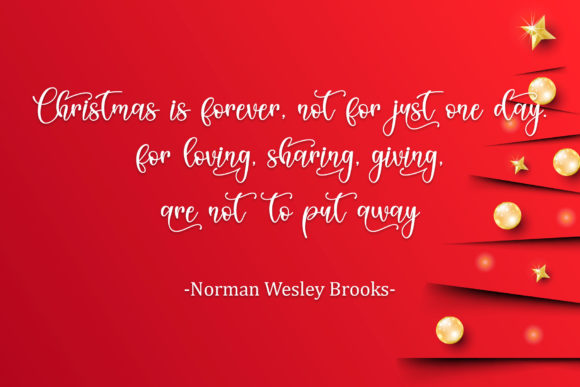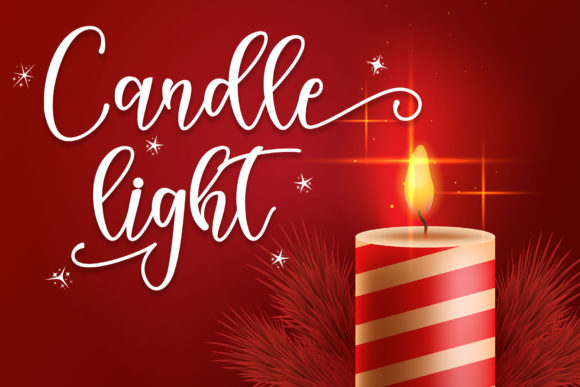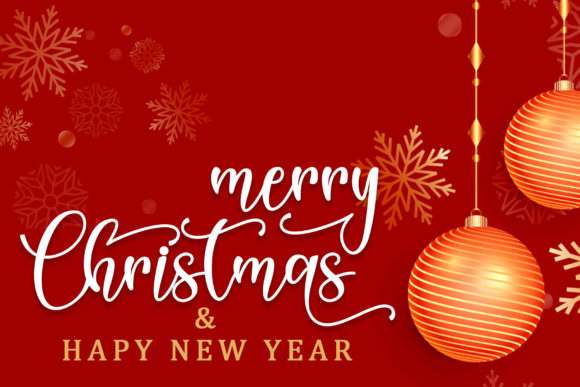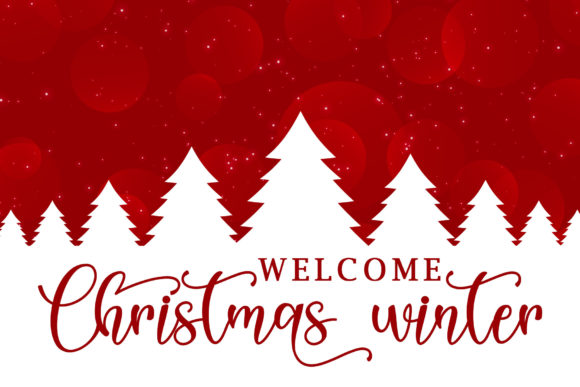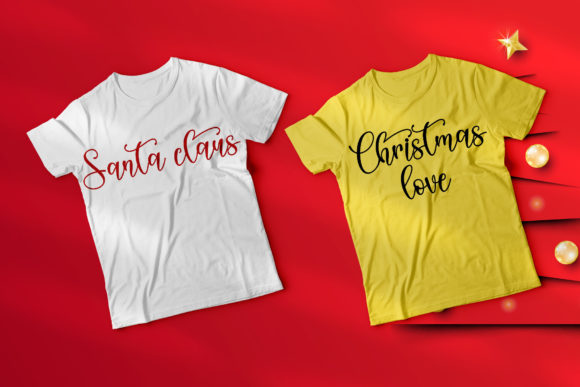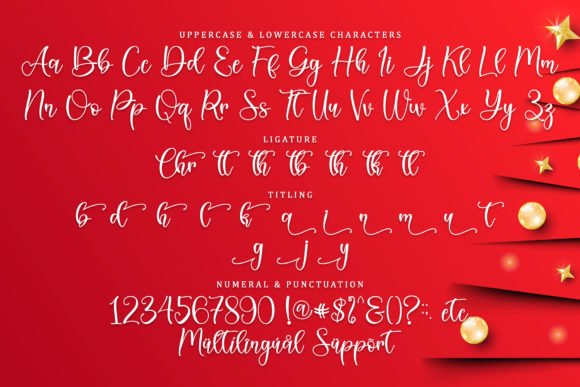
The Magic of Christmas Nice Font: A Designer’s Delight
It’s the most wonderful time of the year – and I’m not just talking about the holiday season! As a designer, I’m always on the lookout for that perfect font to make my projects shine. I recall a particularly stressful design session last Christmas, where I was working on a festive greeting card for a client. I had a clear vision of a beautiful, flowing script font that would capture the essence of the season, but my search was coming up empty. That was until I stumbled upon Christmas Nice Font – a game-changer for any designer looking to add a touch of elegance and whimsy to their work.
An Honest Review of Christmas Nice Font
- ✨ Flowing and well-balanced design: Christmas Nice Font is a beautiful script font that exudes a sense of elegance and sophistication.
- ✅ Sweet and full of life: The font’s playful style makes it perfect for brightening up any design, from holiday cards to festive posters.
- 🔍 PUA encoded for easy access: With PUA encoding, you can easily access all the amazing glyphs and ligatures, making it a breeze to create stunning designs.
While Christmas Nice Font is an excellent choice for designers, there are a few minor quirks to be aware of:
- ⚠️ Limited use in very formal designs: Due to its playful nature, Christmas Nice Font may not be the best fit for very formal or corporate designs.
- 🤔 Requires some practice to master: As with any script font, it may take some time to get used to the various glyphs and ligatures, but trust me, it’s worth the effort!
The Backstory of Christmas Nice Font
While the true story behind Christmas Nice Font remains a mystery, it’s easy to imagine that it was created by a talented designer who wanted to capture the magic of the holiday season. Perhaps they were inspired by vintage Christmas cards, festive decorations, or the warmth of loved ones gathered around the tree. Whatever the inspiration, Christmas Nice Font is a true gem that’s sure to delight designers and crafters alike.
| Font Name | Christmas Nice Font |
| Author | Sakha Design |
Q: What is PUA encoding, and how does it benefit designers?
PUA (Private Use Area) encoding allows designers to access a wide range of glyphs and ligatures, making it easier to create unique and creative designs.
Q: Is Christmas Nice Font suitable for beginners?
While Christmas Nice Font is a beautiful and elegant font, it may require some practice to master, especially for beginners. However, with a little patience and practice, anyone can learn to use it effectively.